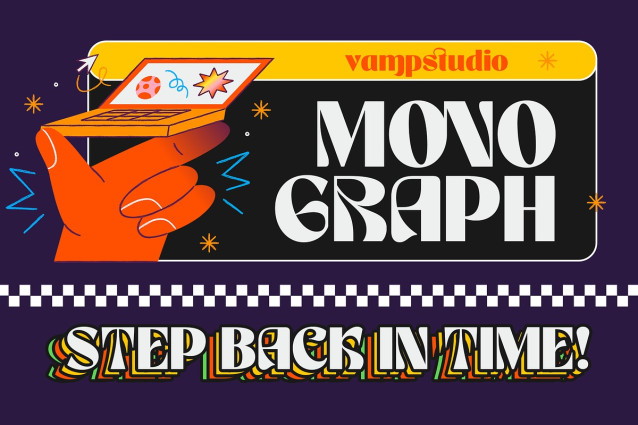
Monograph Font
Monograph Font – Embrace the Nostalgia of the 90s with Our Retro-Inspired Display Font!Step into the vibrant world of the 90s with “Monograph,” a display font that captures the essence of the era’s bold and dynamic design. Let your creativity soar as you infuse your projects with the unmistakable spirit of retro nostalgia.